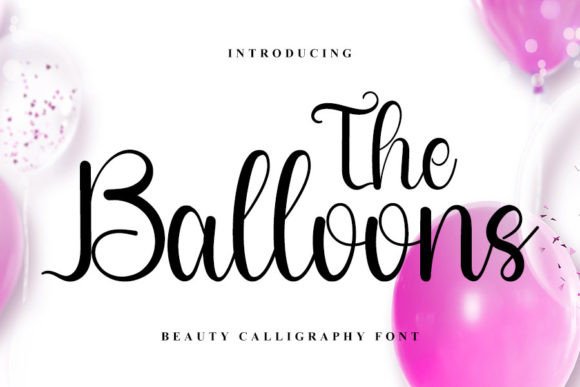
In a world of digital expressions, where words take flight and emotions soar, The Balloons Font emerges as a captivating script, ready to elevate your designs to new heights. Created by the visionary minds at Kongsi.Co, this handwritten masterpiece embodies elegance and charm, leaving an unforgettable mark on every project it graces.
With its delicate strokes and graceful curves, The Balloons Font dances across the screen, carrying your messages with a touch of whimsy and flair. Its timeless style transcends trends, making it the perfect choice for those seeking a font that stands the test of time. Unleash your creativity and let your imagination soar as you explore the endless possibilities that await with this exceptional font.
Whether you're designing enchanting invitations, heartfelt greeting cards, or eye-catching social media posts, The Balloons Font serves as your trusted companion, effortlessly adding a touch of sophistication and elegance to every creation. Its versatility knows no bounds, adapting seamlessly to a myriad of projects, from personal to professional.
Immerse yourself in the world of The Balloons Font and discover a font that captures the essence of joy, wonder, and timeless beauty. Let your words take flight, carried by this enchanting script, as you create designs that captivate and inspire.
Experience the magic of The Balloons Font today and embark on a creative journey where elegance meets imagination. Its unique charm and captivating style await your touch, ready to transform your designs into works of art. Fall in love with the beauty of handwritten artistry and elevate your projects to new heights with The Balloons Font.